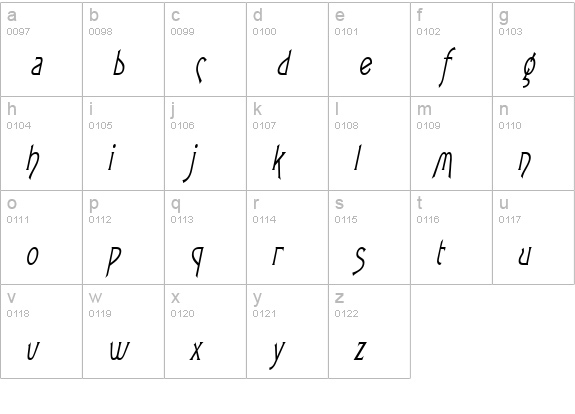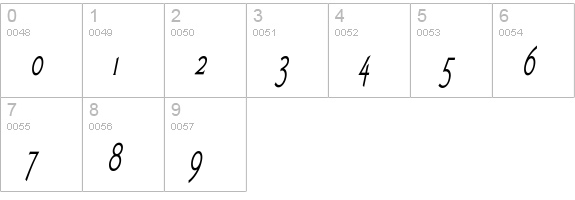
Fletch Thin Italic is a delicate, low-contrast, italic variant in the Fletch typeface family \xE2\x80\x94 well suited to fashion editorial, minimal branding, and high-contrast display.
Fletch Thin Italic font is a stylish and elegant typeface that exudes a sense of sophistication and modernity. Its delicate and slanted design adds a touch of flair to any project, making it perfect for use in branding, editorial design, and more. The thin weight of this font gives it a sleek and contemporary look, while the italic style adds a sense of movement and dynamism. What makes Fletch Thin Italic font even more appealing is the fact that it is available for free download at FontsMarket.com. This means that you can easily access this beautiful typeface and use it in your designs without any cost involved. Whether you're working on a personal project or a professional one, Fletch Thin Italic font is sure to elevate your design and make a lasting impression.